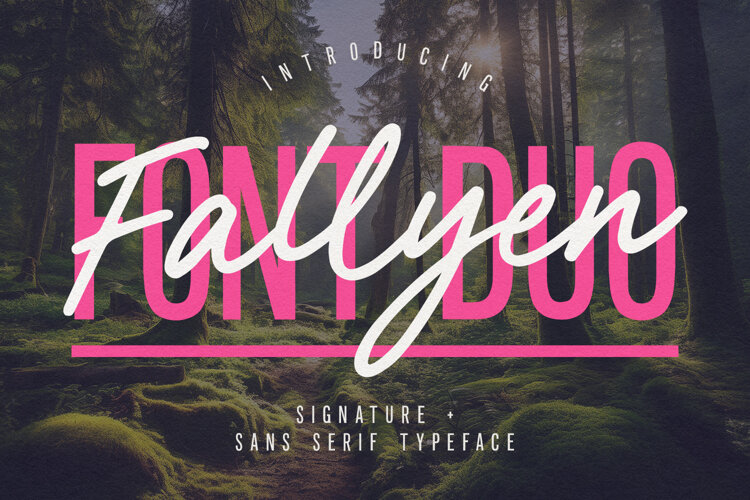
Fallyen Font Duo Signature Sans Serif Typeface
Fallyen Font Duo is a stylish typographic combination featuring a fluid, handwritten signature script alongside a tall, condensed sans-serif typeface. This versatile duo provides a dynamic contrast between organic flow and bold structure, making it ideal for creating eye-catching visual hierarchies in branding projects, promotional graphics, poster designs, and modern editorial layouts.
Equipped with uppercase and lowercase character sets, numerals, punctuation, ligatures, and extensive multilingual support, Fallyen offers smooth versatility across modern graphic design applications. Whether layered together for striking contrast or used independently, this typeface combination enhances logos, merchandise visuals, quote graphics, social media posts, and marketing campaigns with a contemporary aesthetic.